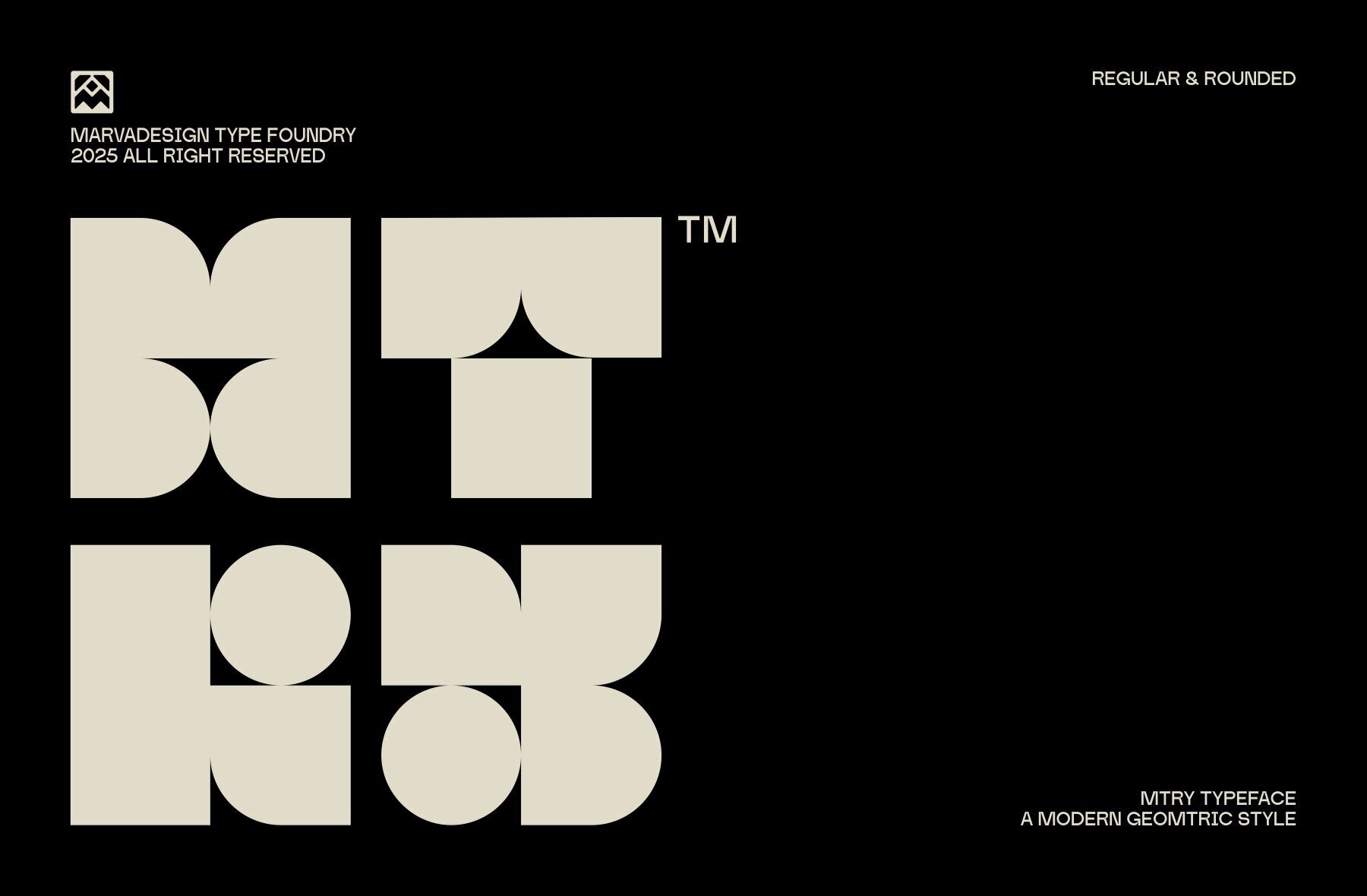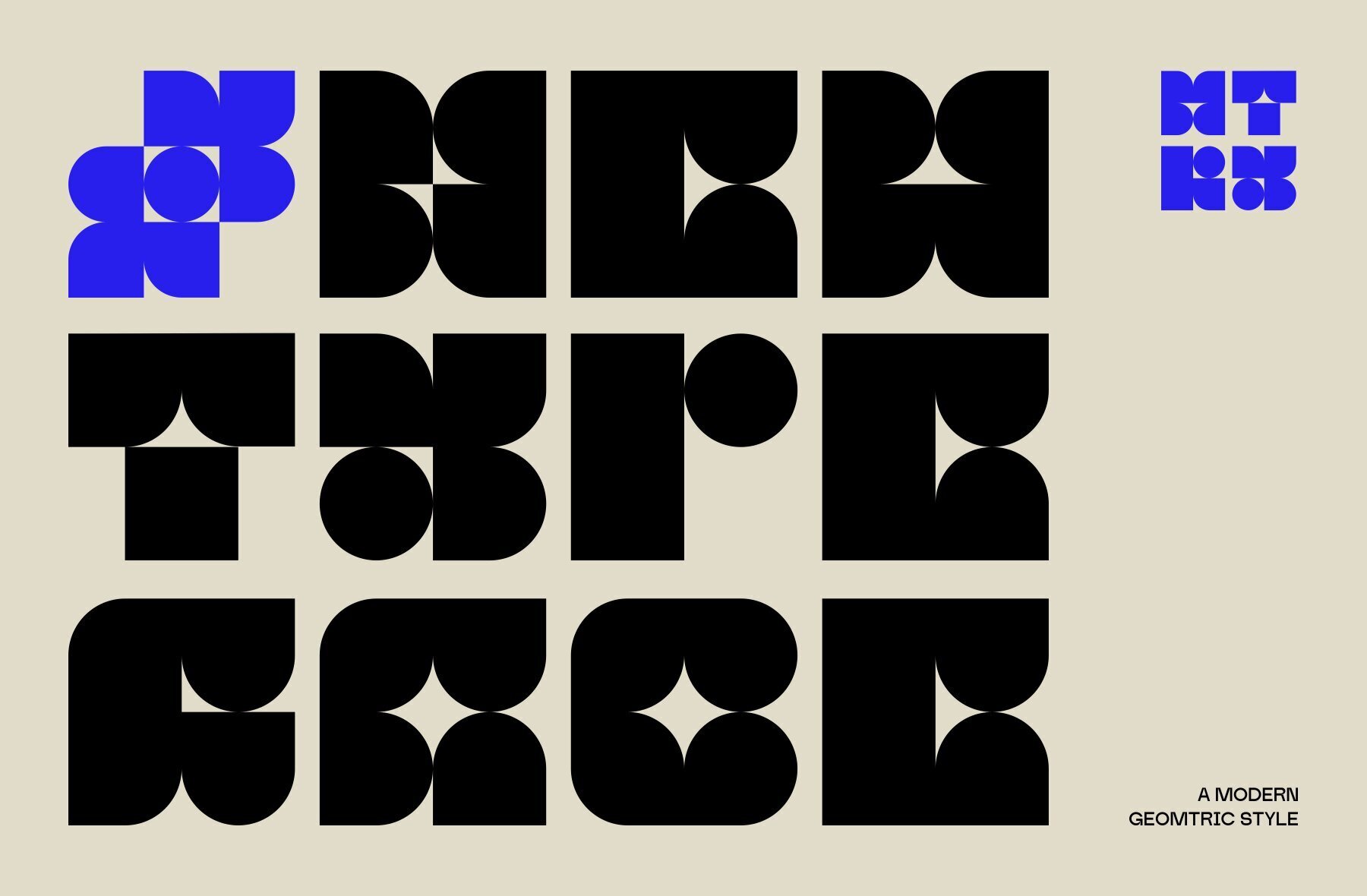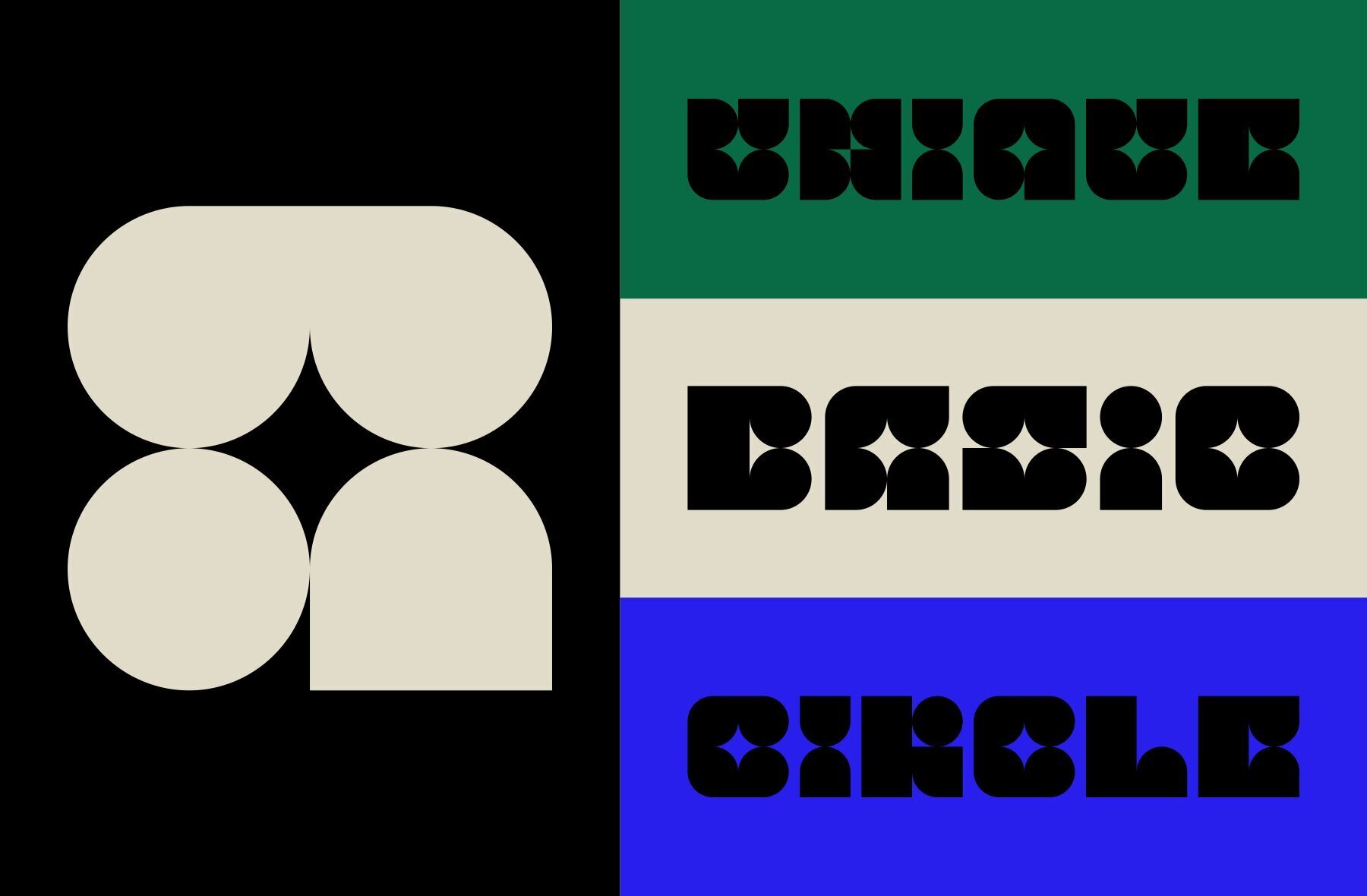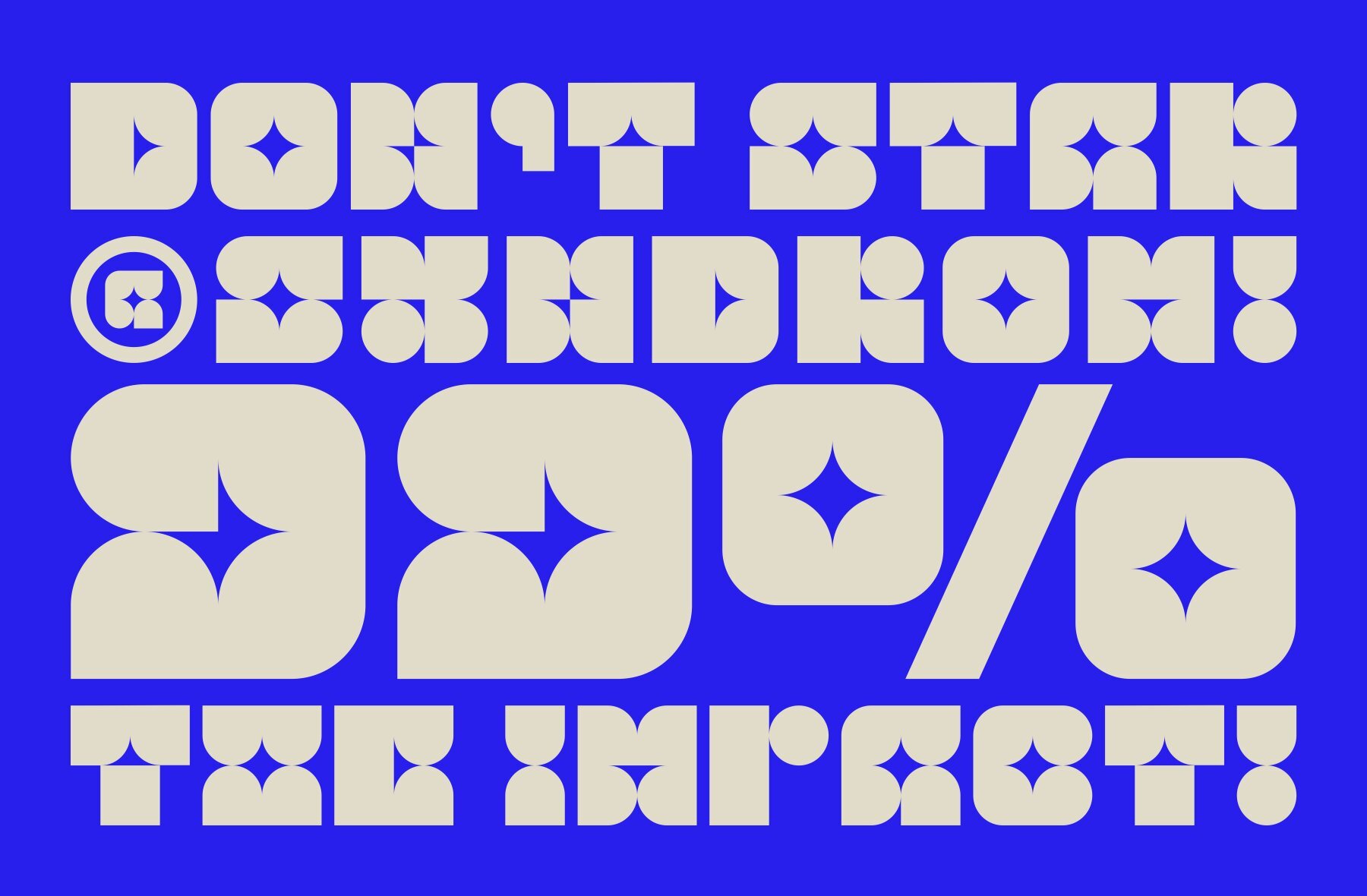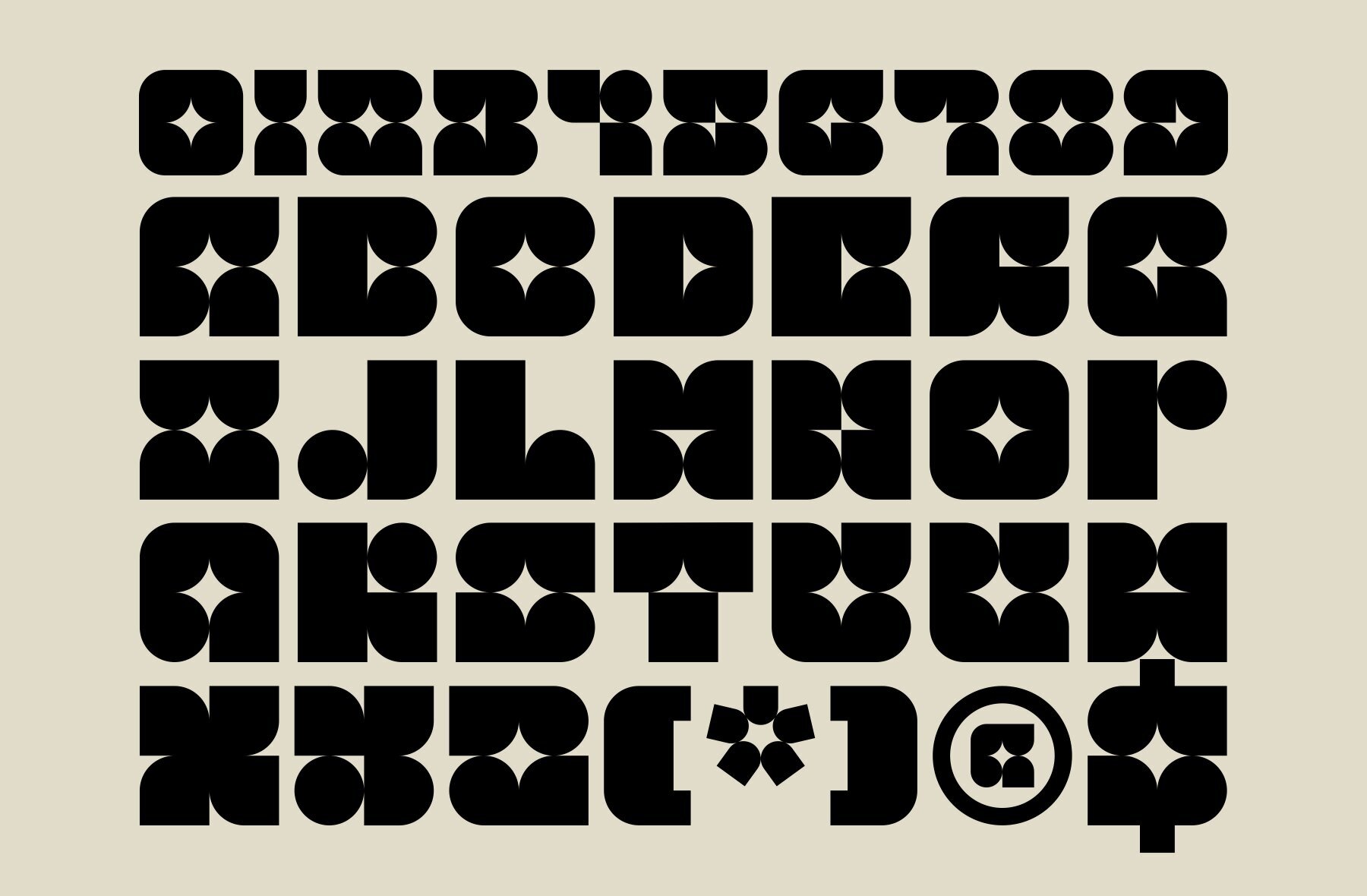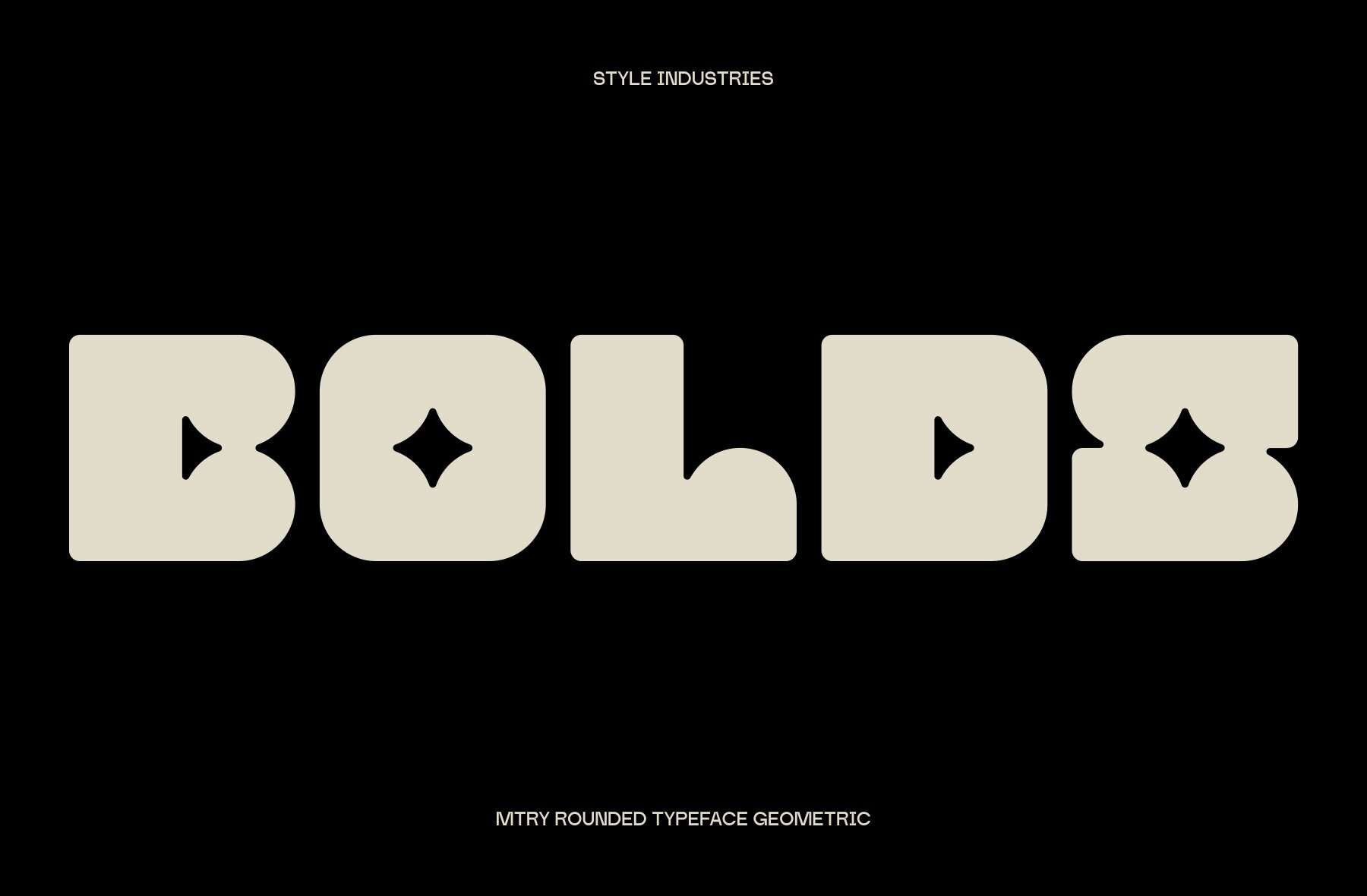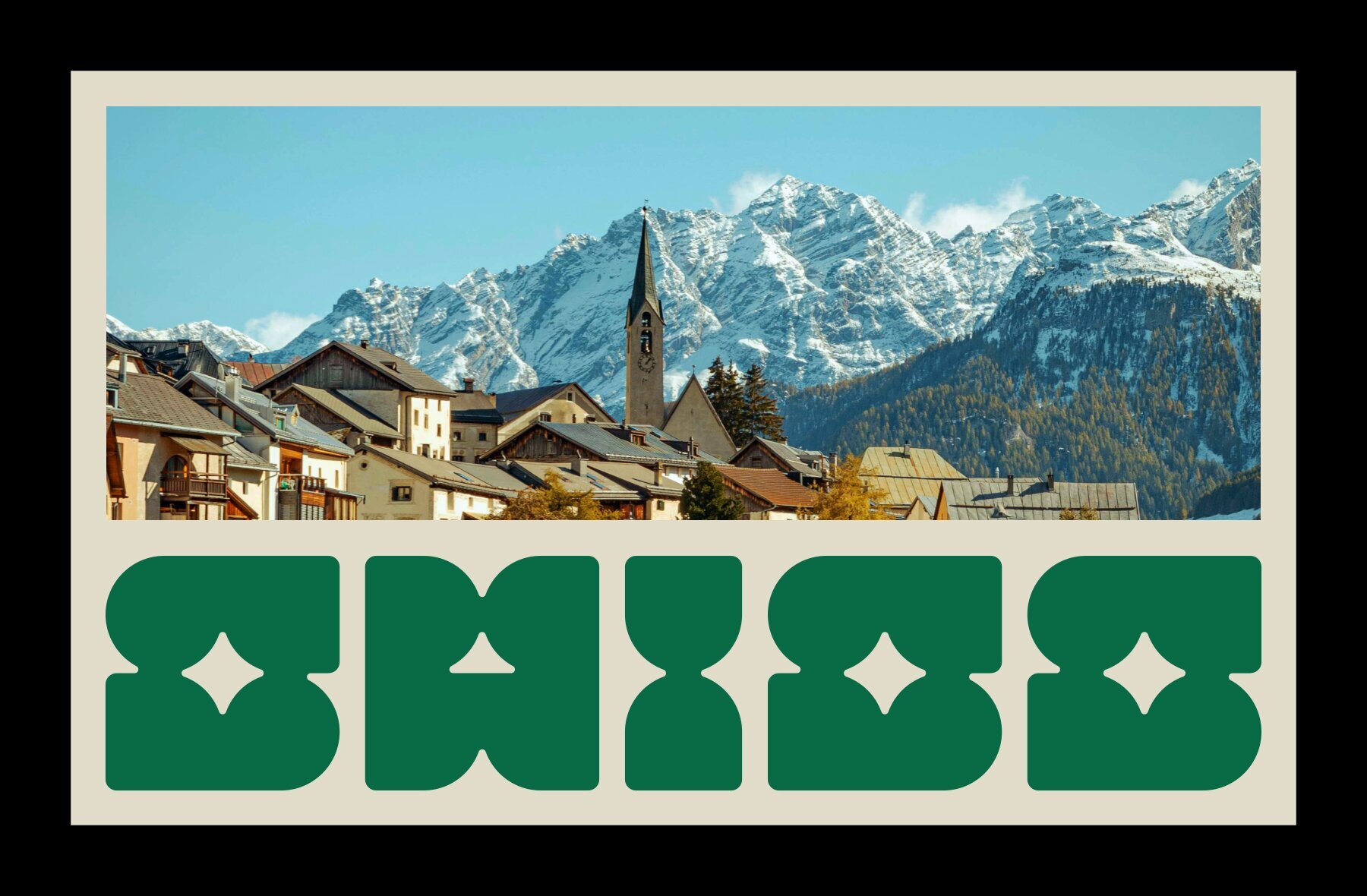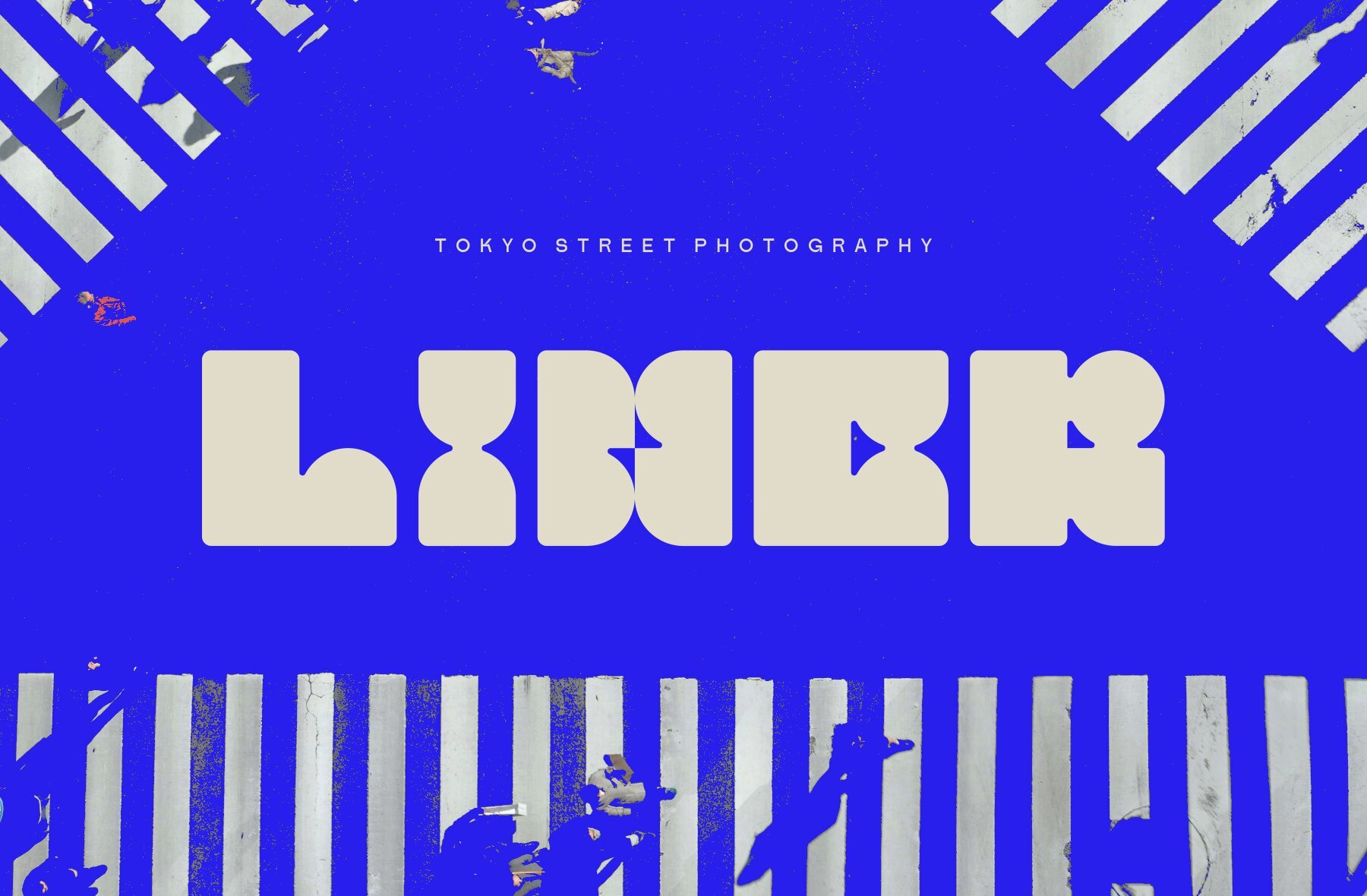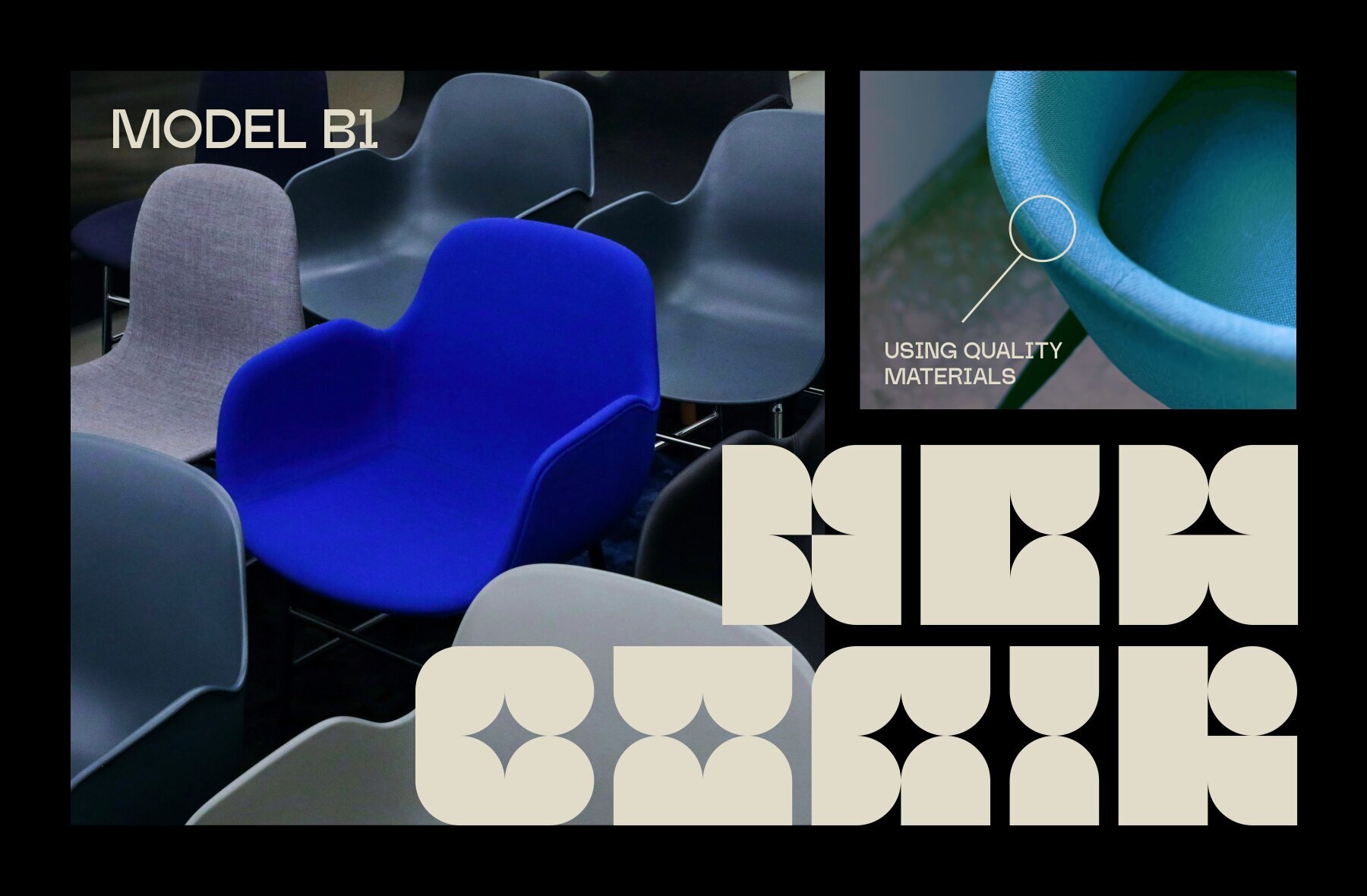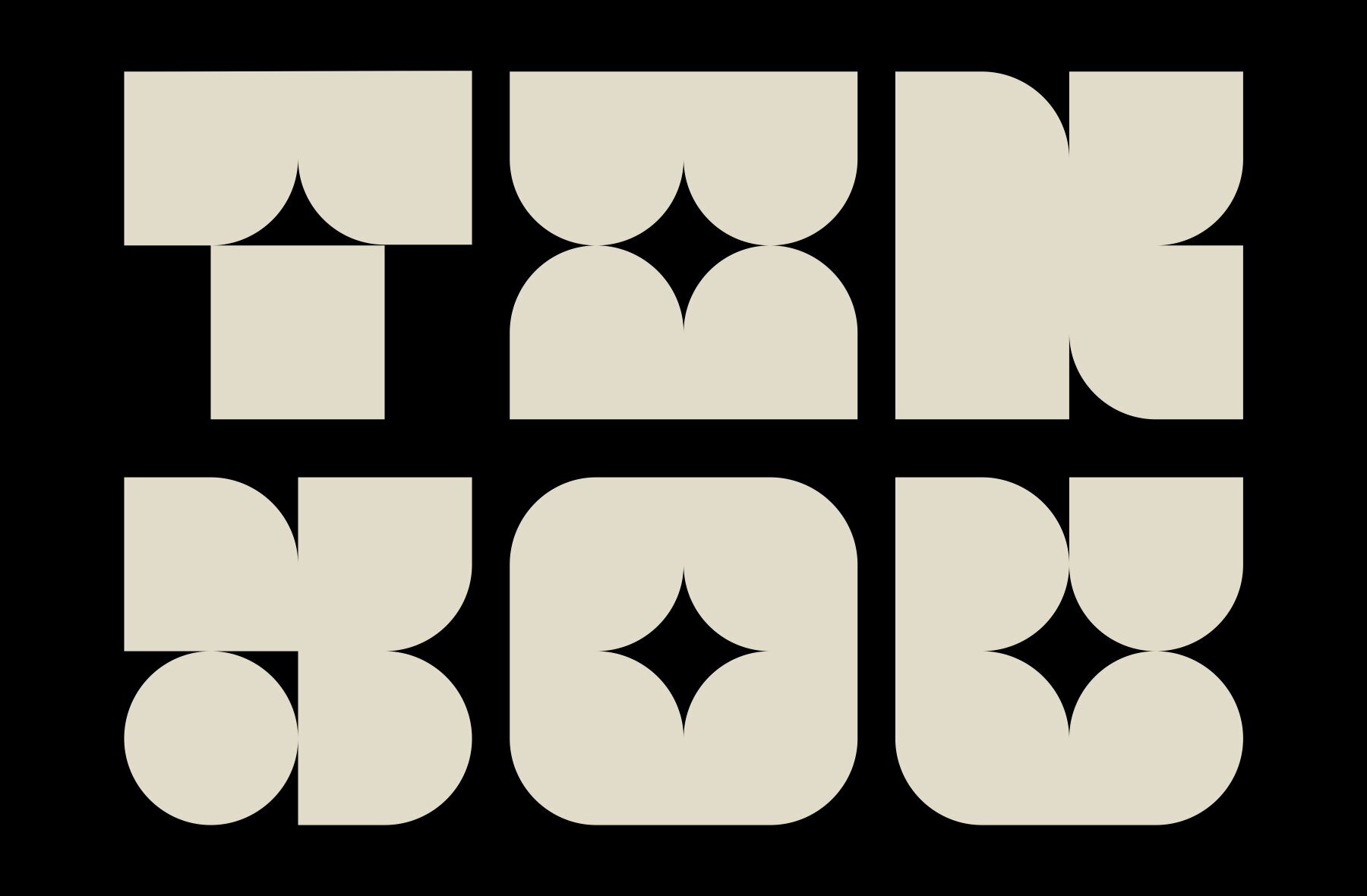
MTRY Font
MTRY stands as a modern experimental masterpiece in geometric typography. Its bold, blocky design infuses distinctive visual elements such as circular curves and star-shaped interior cuts, imparting a unique and futuristic aesthetic. Rooted in a rounded geometric style, MTRY harmoniously blends basic shapes like circles, squares, and triangles with an artistic, decorative approach. Ideal for creative branding, poster designs, or attention-grabbing titles, this typeface exudes strength, playfulness, and a contemporary flair. Its striking look makes MTRY a prime choice for projects seeking a bold and unconventional statement.MTRY: Bold Geometric Typeface With a Futuristic Edge